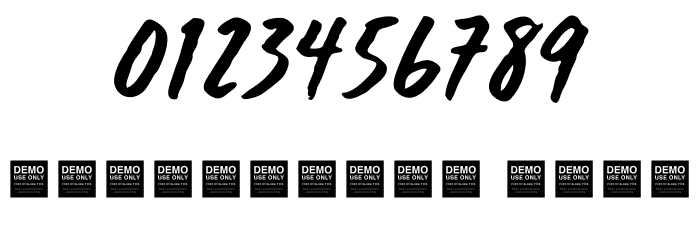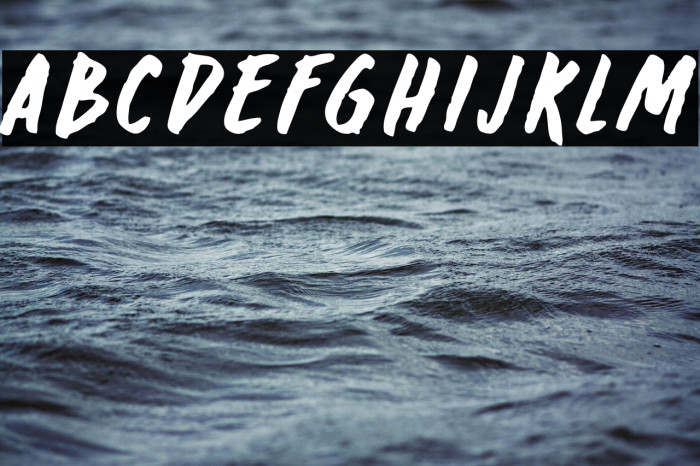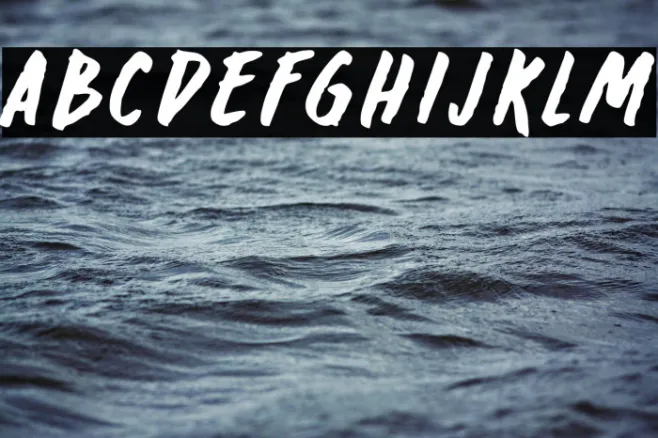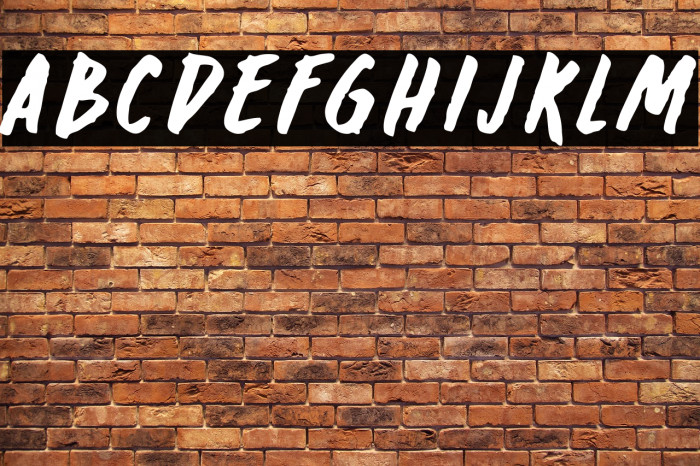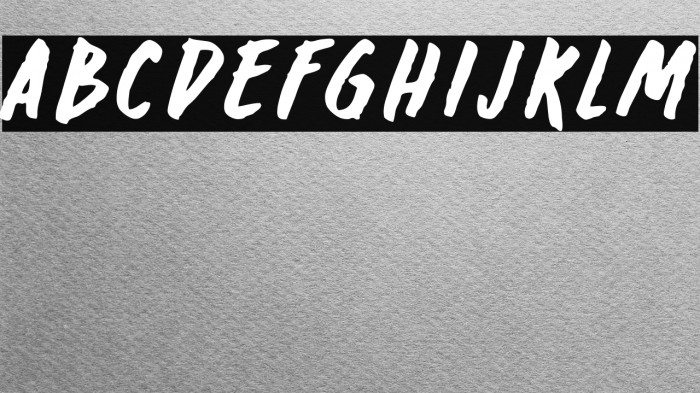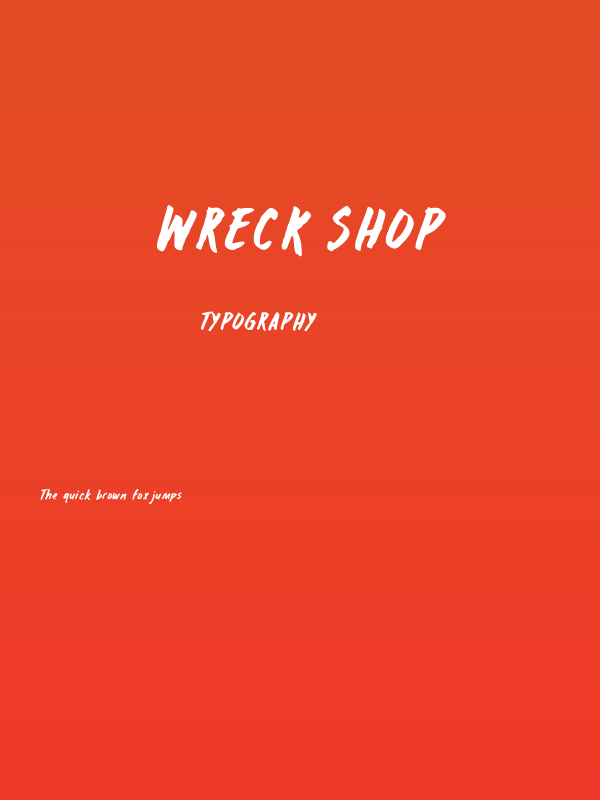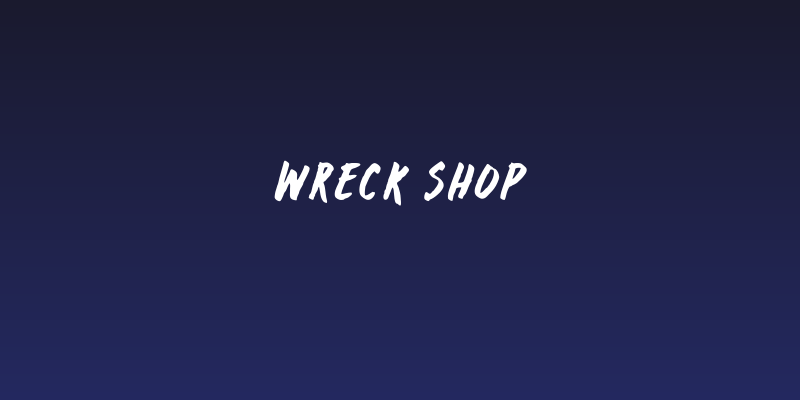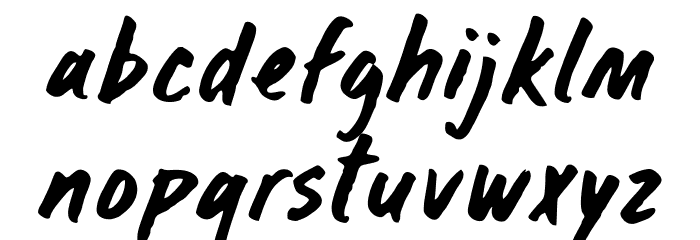
Wreck Shop Font
Wreck Shop Description
This font exhibits a bold, handwritten style with a dynamic and energetic appearance. The letters are slightly slanted, giving a sense of movement and fluidity. The strokes are thick and uneven, adding a raw and organic feel. The uppercase and lowercase letters maintain a consistent style, with rounded edges and a casual, informal look. The numbers and special characters follow the same aesthetic, making the font versatile for various uses. Its distinctive character makes it ideal for projects that require a personal touch or a creative flair.
| Proposed Projects | Ideal for branding, posters, social media graphics, and creative projects that require a personal touch. |